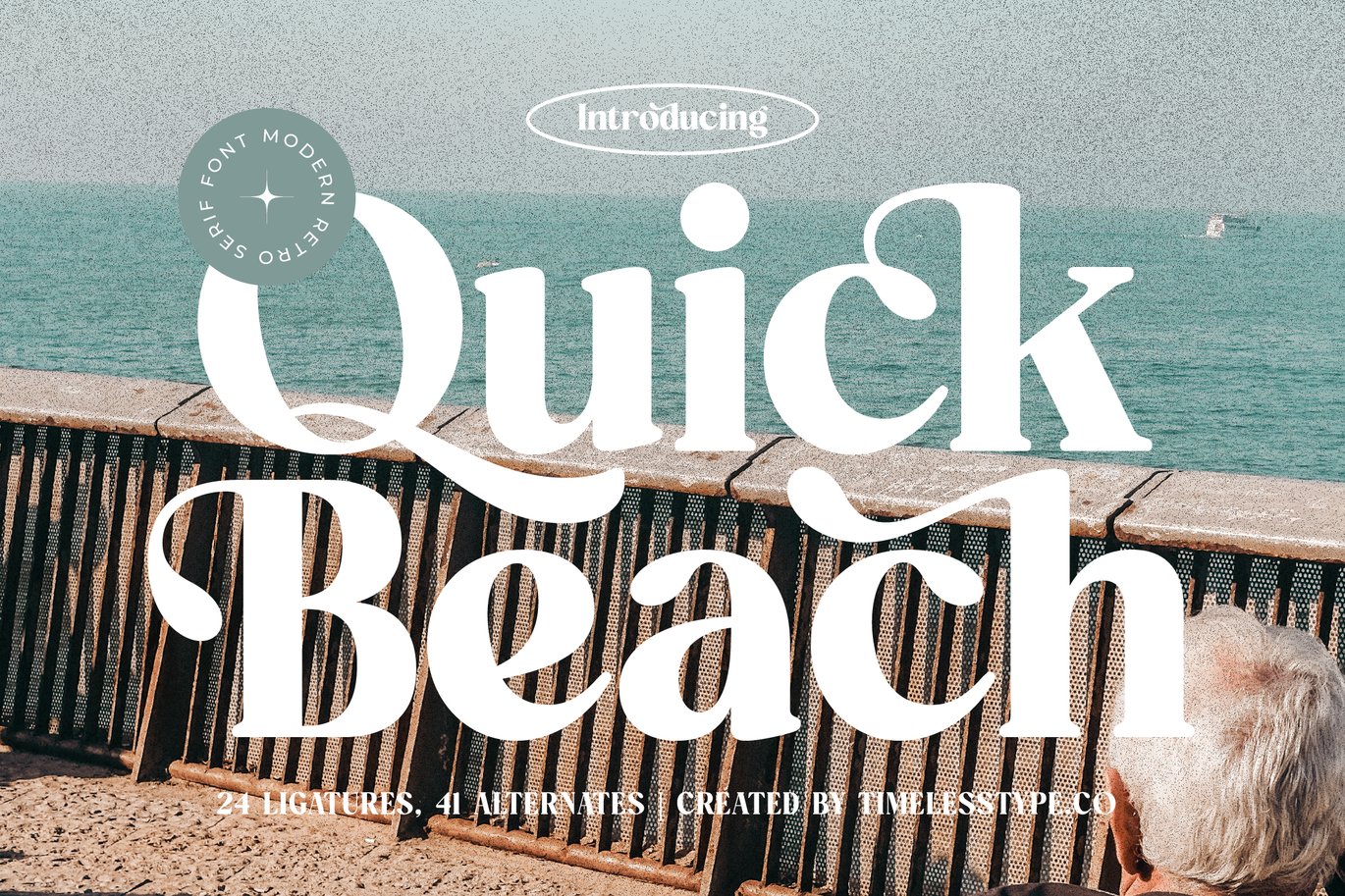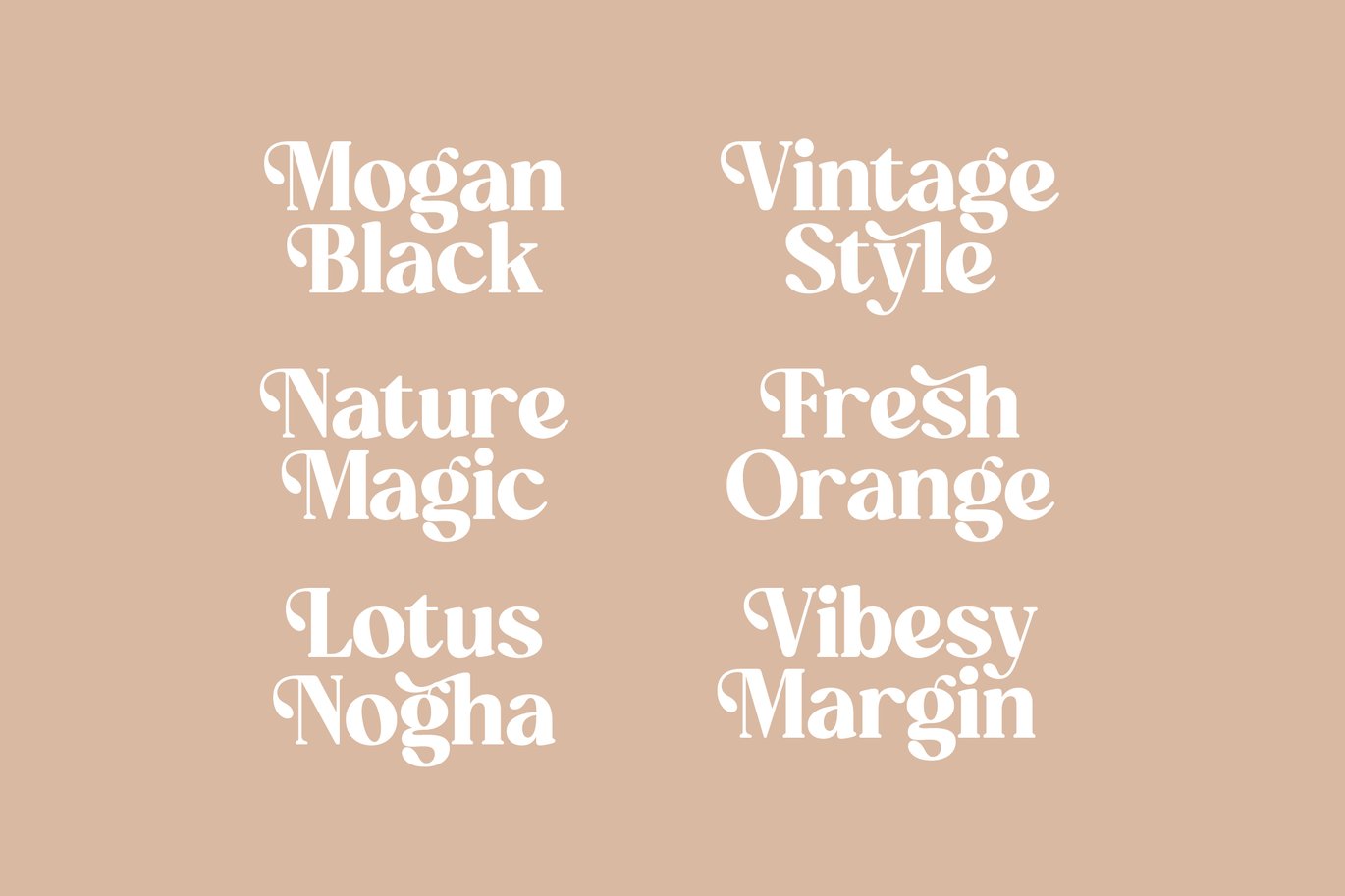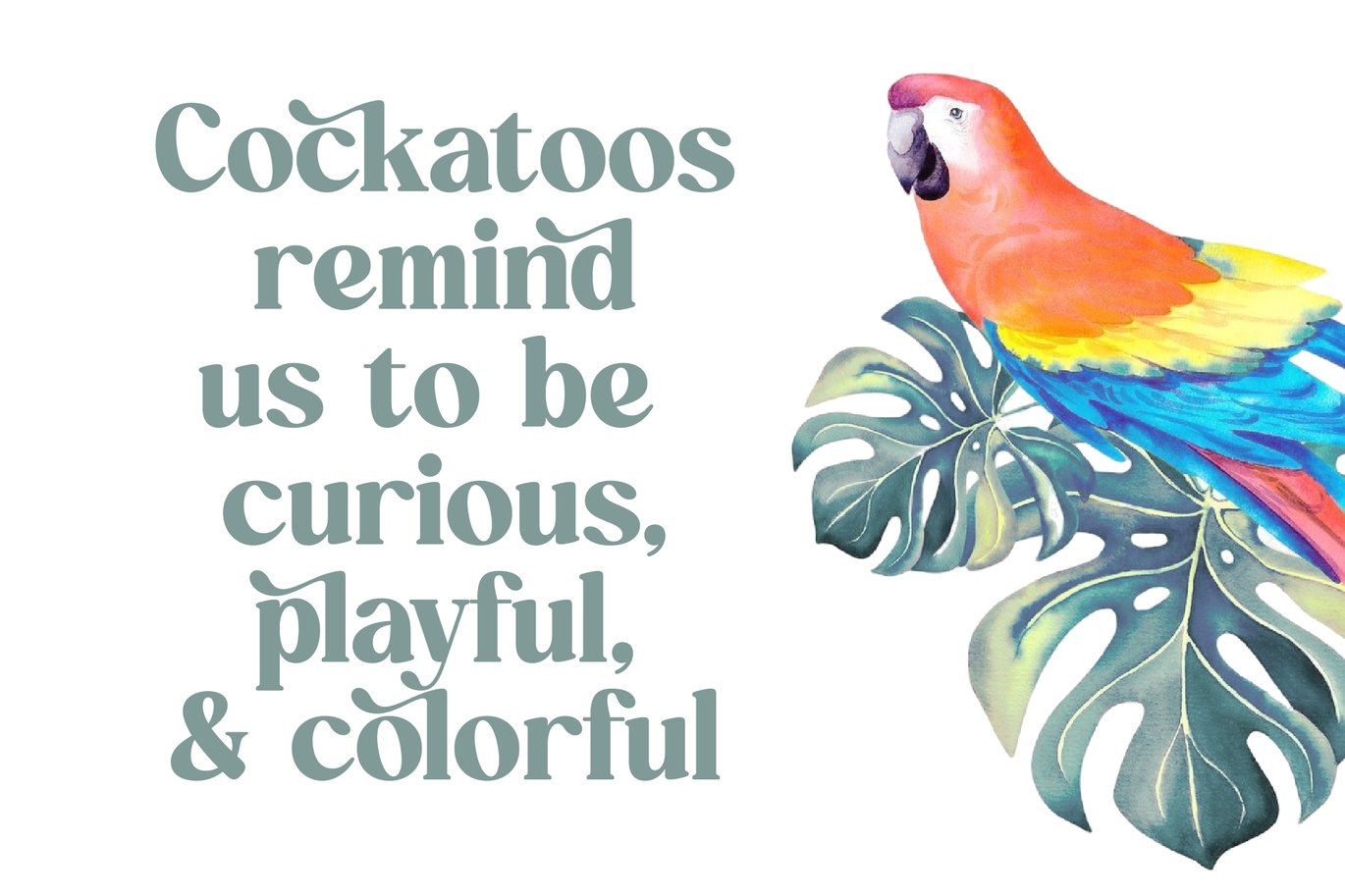
Quick Beach – Modern Retro Serif Font
Quick Beach – Modern Retro Serif Font is a versatile typeface ideal for various projects, including logos, branding, posters, blog headers, advertisements. The free version includes a full set of uppercase and lowercase letters, available in OTF format.
Quick Beach – Modern Retro Serif Font